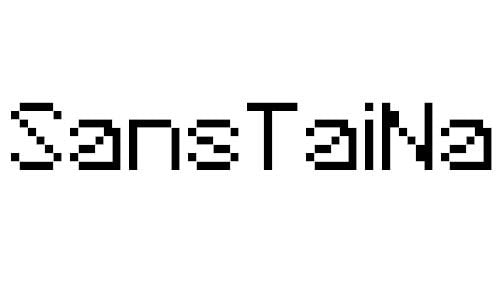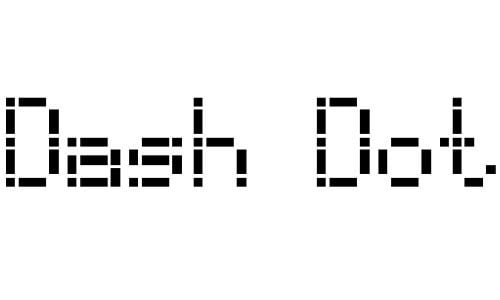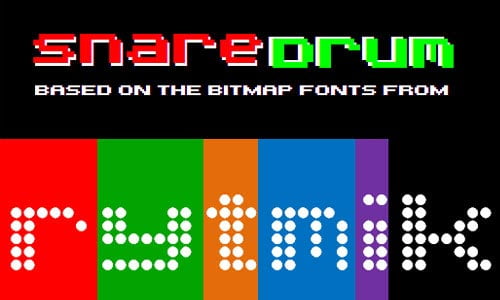
We have found a new variety of Pixel Fonts which you can put in your catalogue of fonts. Check it out at this selection if you are working on a task right now and select the ones which look great on your presentations, headings or title in a website’s header.
SansTaiNa
Power Pixel
Signus Digital Round NBP
High Pixel
Begin from A
Void Pixel
Light Pixel
Light LED Display
Dash Pixel
Stencil Pixel
Bubble Pixel
Dash Dot LCD
Pxlvetica
Dot Digital
SnareDrum One NBP
WLM SmallCaps
Shylock NBP
Pixel Millennium
Dunno Fined
Press Start 2P
Akron NBP
Double Pixel
NBP Informa FiveSix
Outline Pixel
Small Dot Digital